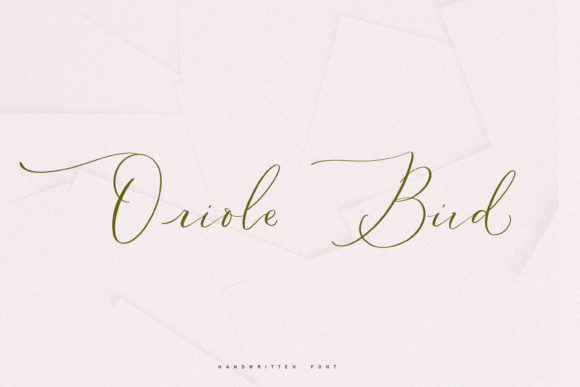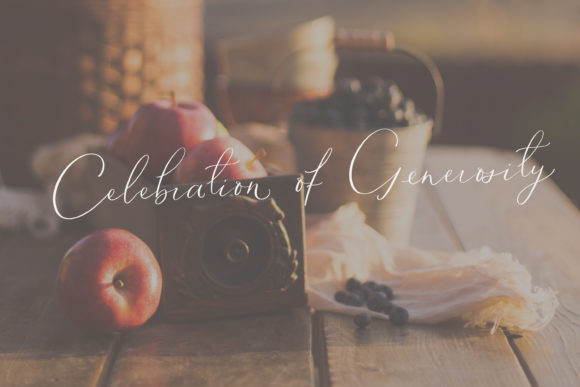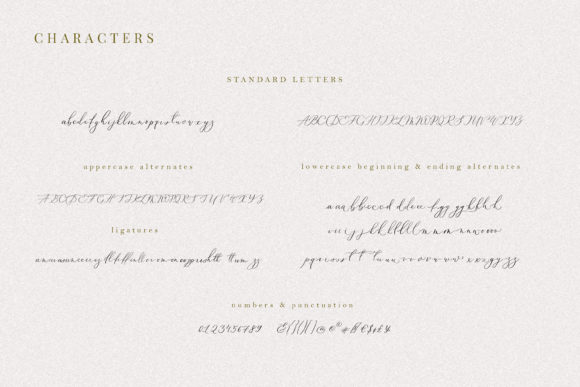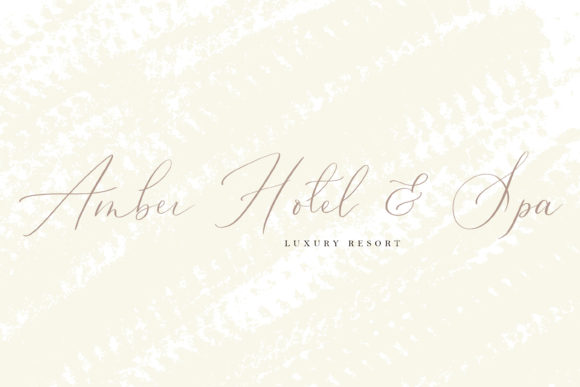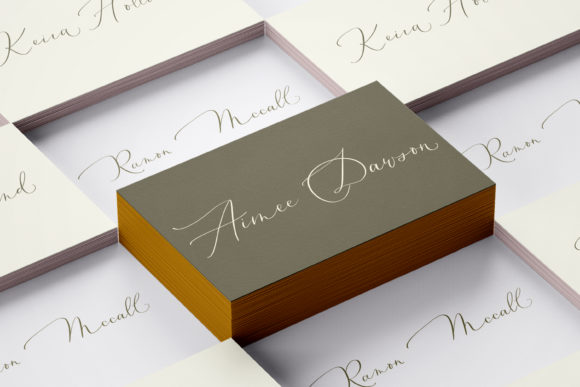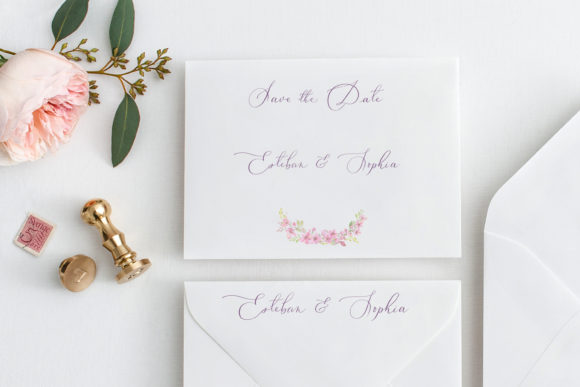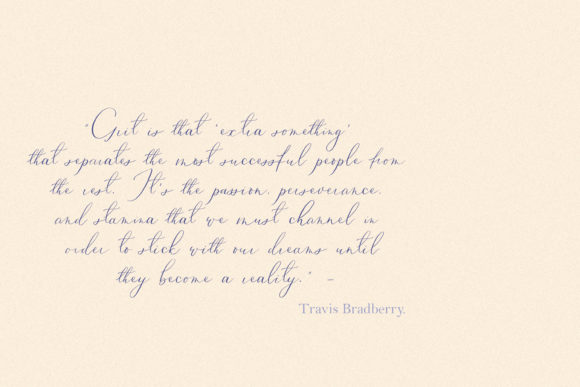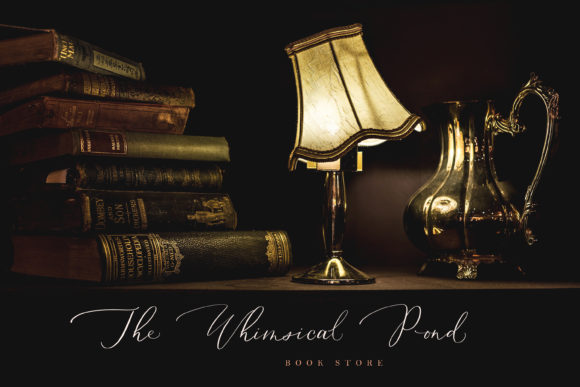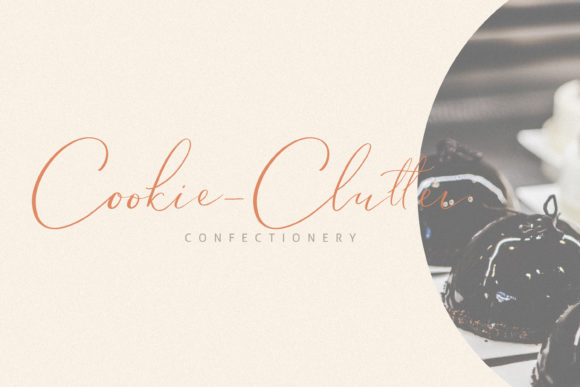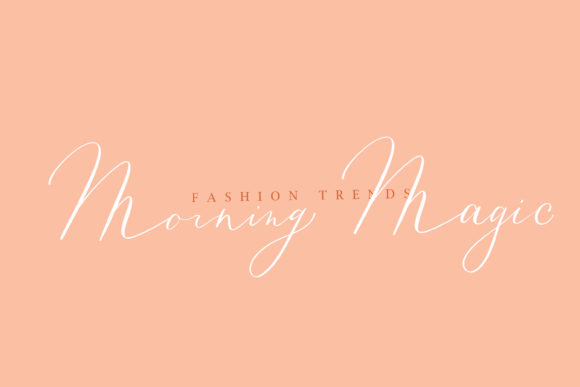
HomeScript FontsOriole Bird Font Script Fonts Oriole Bird Font FacebookXPinterestWhatsApp Oriole Bird Font Poster 2 Oriole Bird Font Poster 3 Oriole Bird Font Poster 4 Oriole Bird Font Poster 5 Oriole Bird Font Poster 6 Oriole Bird Font Poster 7 Oriole Bird Font Poster 8 Oriole Bird Font Poster 9 Oriole Bird Font Poster 10 About Oriole Bird Font Oriole Bird is a sweet and simple script with a cool vibe. Get inspired by its contemporary charm! DOWNLOAD ON CREATIVE FABRICAThis font is sold and delivered by Creative Fabrica. Font Canyon may earn a commission if you buy through this link. People also explored Marest Font Blue Berry Font Dreaming of Sunny Days Font Billie Jhone Font Varigation Font Minimalist Font Happy Wedding Font Bubirta Font Amanda Font 657 0 TagsOriole Bird Font Previous articleRuckshack FontNext articleMistice Font LEAVE A REPLY Cancel reply Comment: Please enter your comment! Name:* Please enter your name here Email:* You have entered an incorrect email address! Please enter your email address here Website: Save my name, email, and website in this browser for the next time I comment. Personal Use Free Lynoselt Personal Use Free Read more about this font Butter Belly Personal Use Free Read more about this font Gonestones Personal Use Free Read more about this font Miracles Personal Use Free Read more about this font BLOG The 10 Best Handwriting Fonts to Add Personality to Your Designs 10 of the Best Handwriting Fonts for Adding Personality to Your Designs There will undoubtedly be no other better choice than handwriting fonts to give... Top 10 Handwritten Fonts That Elevate Your Designs Modern Sans-Serif Fonts That Brands Love in 2025 5 Fonts That Will Dominate Design Trends in 2026